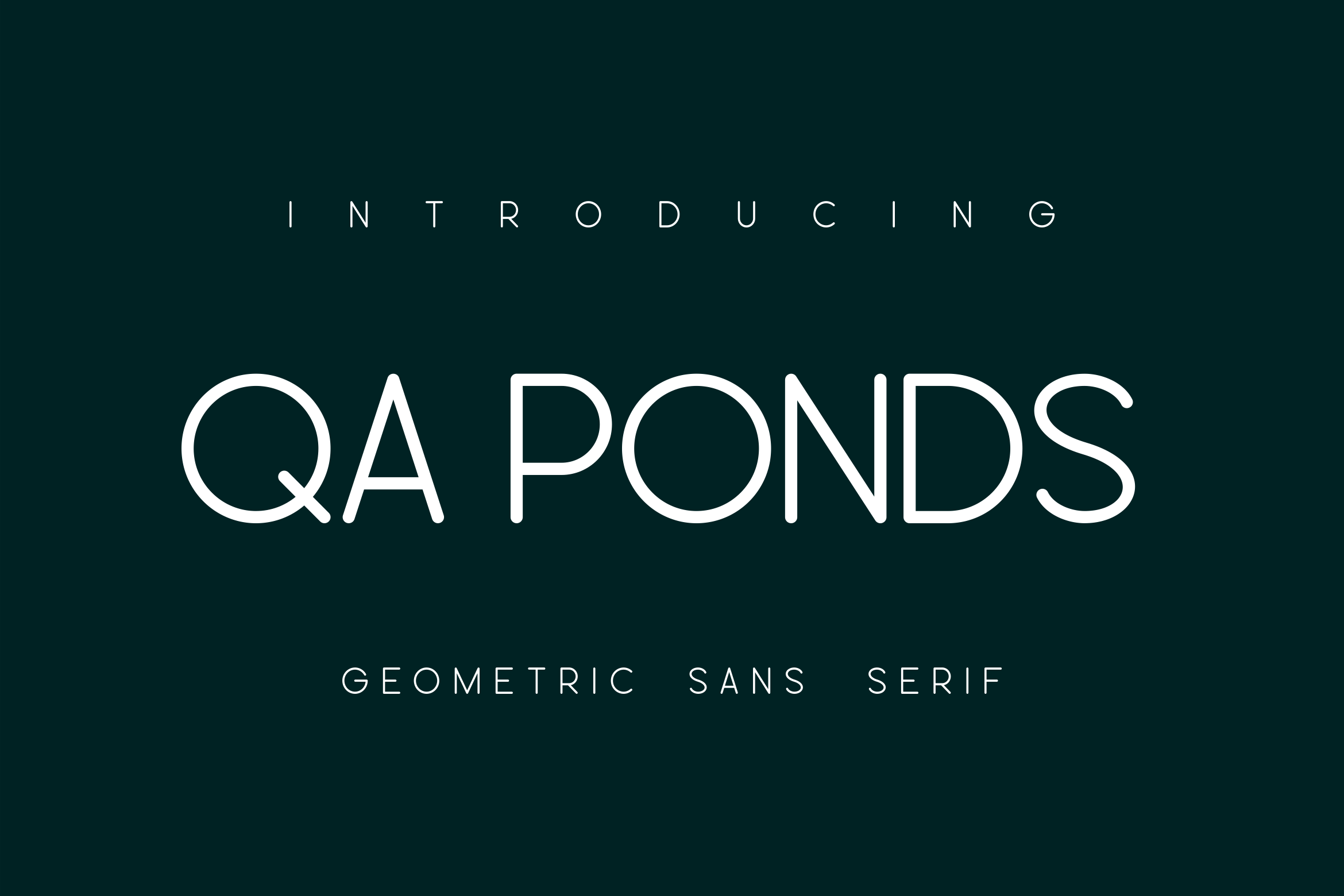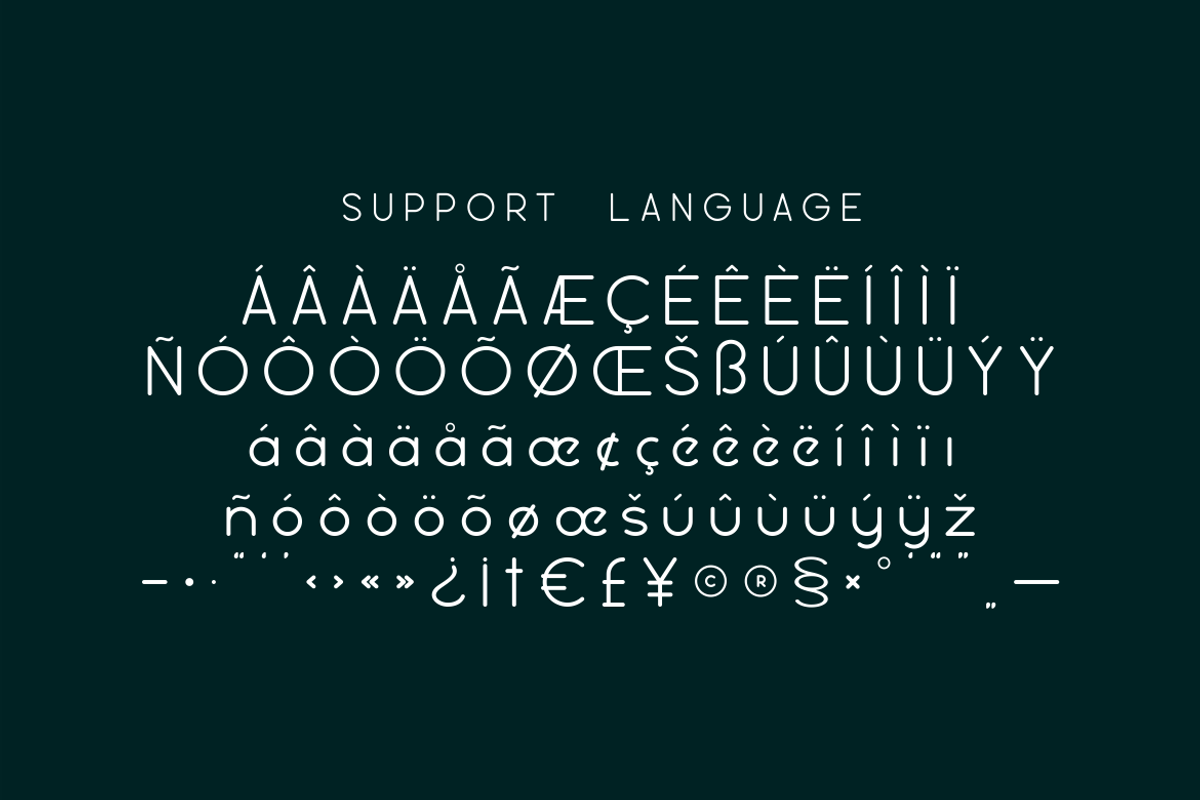
Qa Ponds Multi language Font
Introducing the Geometric Regular font - a perfect blend of precision and readability. This multi-purpose typeface is meticulously crafted to ensure your lengthy documents never compromise on visual appeal. Equipped with a plethora of character variance, Geometric Regular supports multiple languages fluidly, taking global expressiveness to new typographical heights. Its clean and clear design makes reading an effortless endeavor, rendering it ideal for diverse textual presentations. Unleash your content's full potential with the inclusive and elegantly subtle Geometric Regular font.